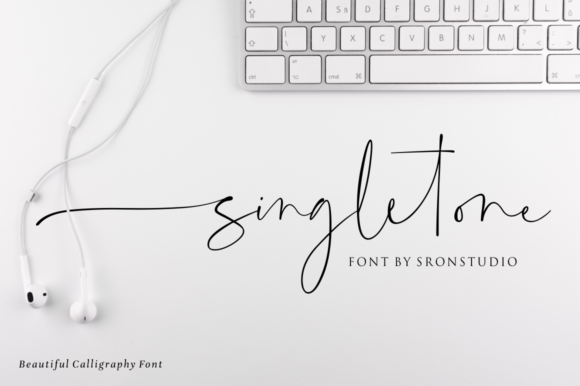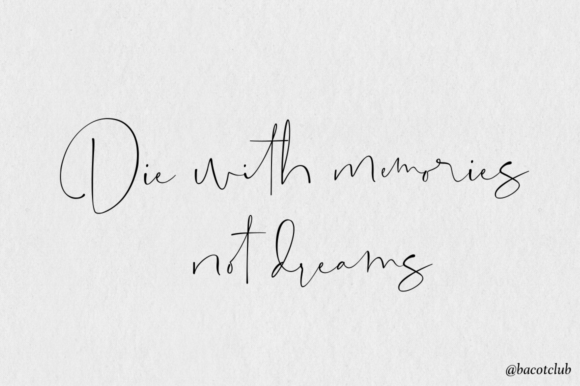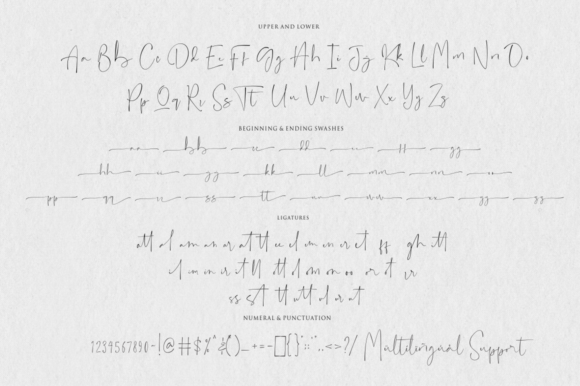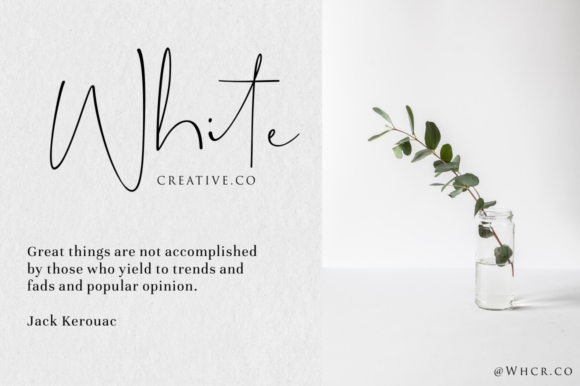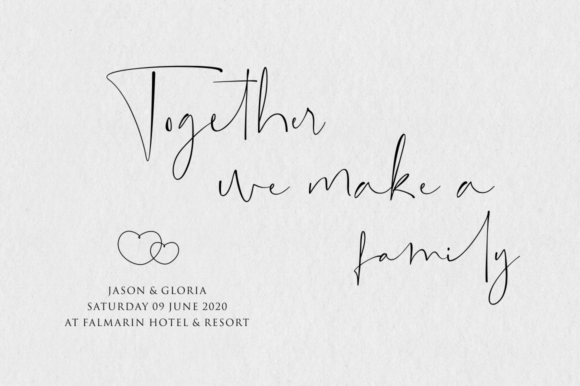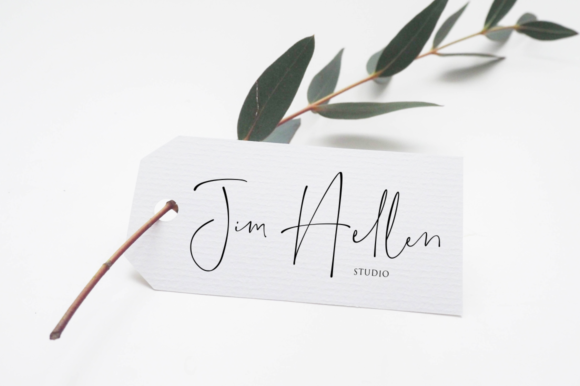
About Singletone Font
Singletone is a beautiful calligraphy font perfect for branding, invitations, stationery, wedding designs, social media posts, advertisements and so much more. This font is PUA encoded which means you can access all of the glyphs and swashes with ease! Fall in love with its incredibly versatile style and use it to create spectacular designs!